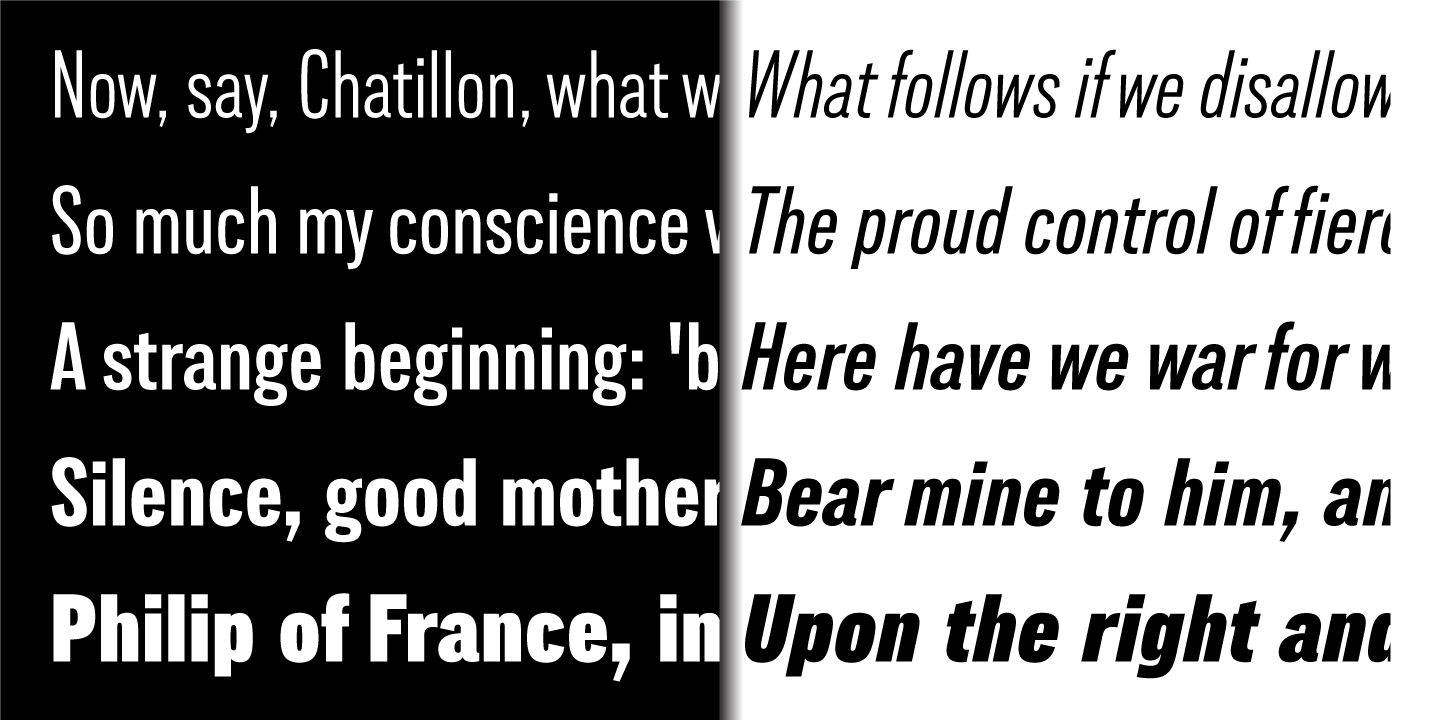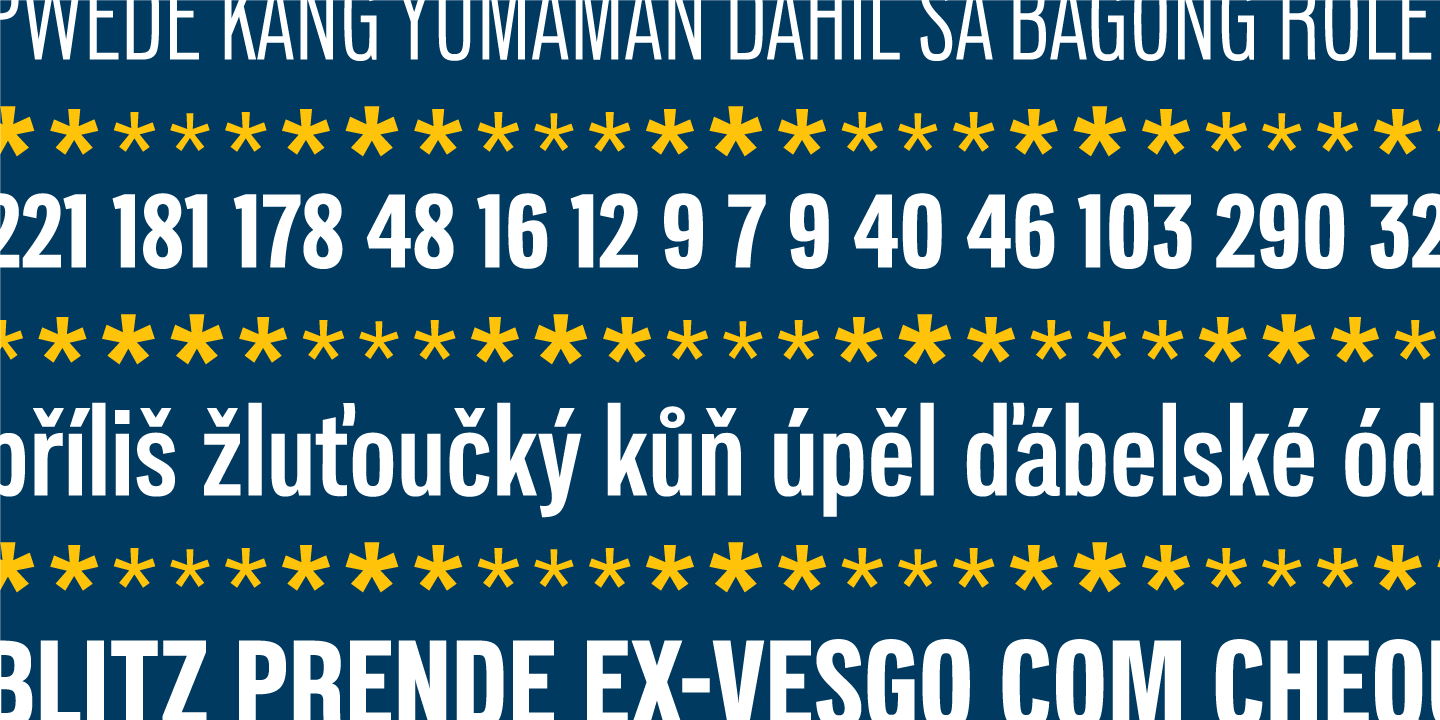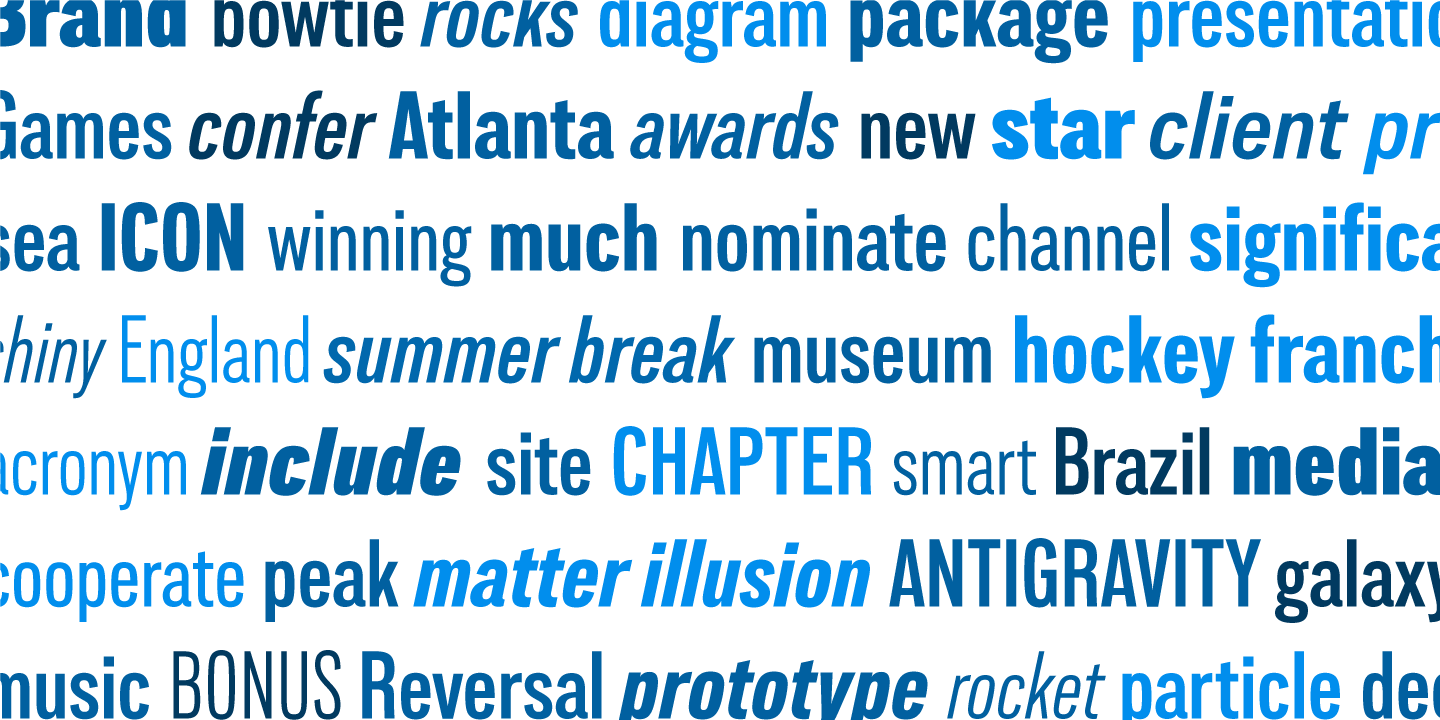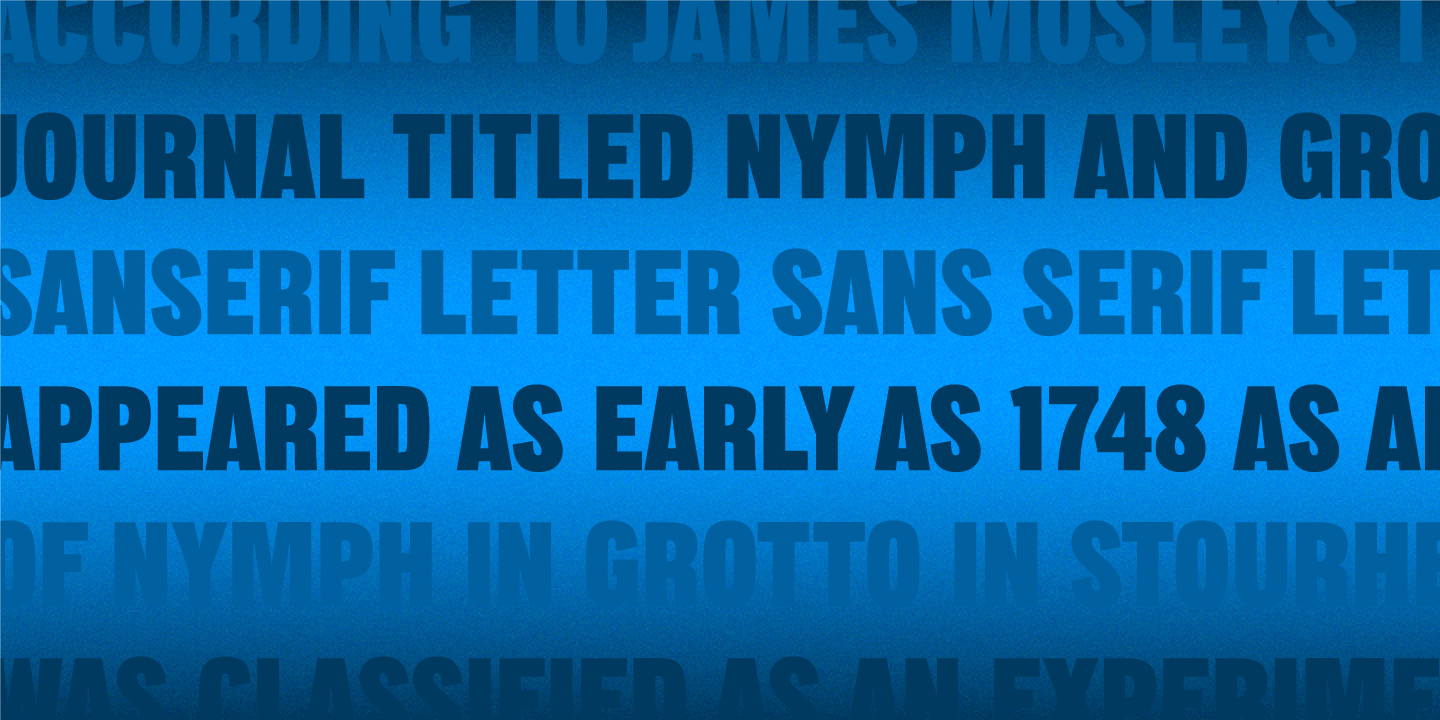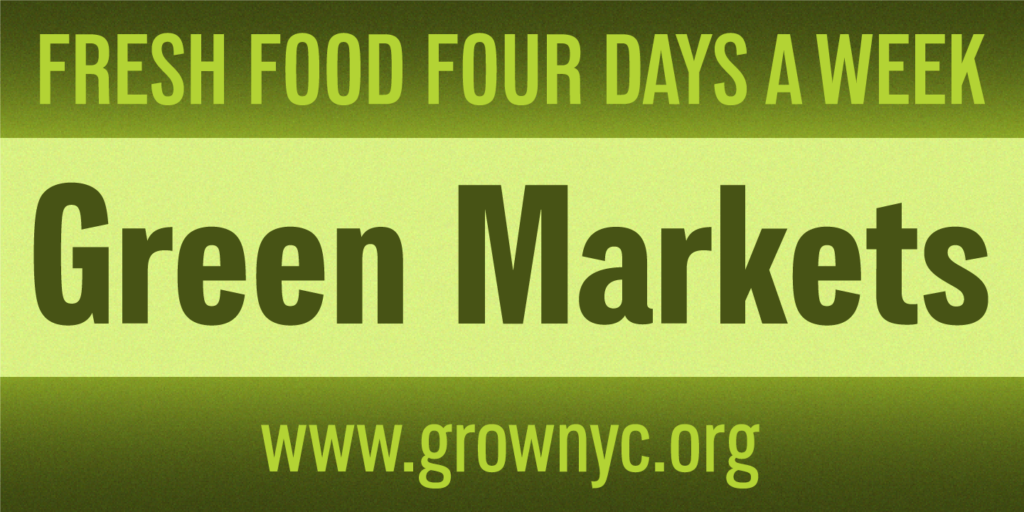
Lorimer No 2 Condensed
About Lorimer No 2 Condensed
Lorimer No 2 is a sans family designed for display settings. Narrow letters, tight spacing, and a low x-height make Lorimer No. 2 better suited to display settings than fonts adjusted to work in text settings. Packaging, identities, and headlines are…